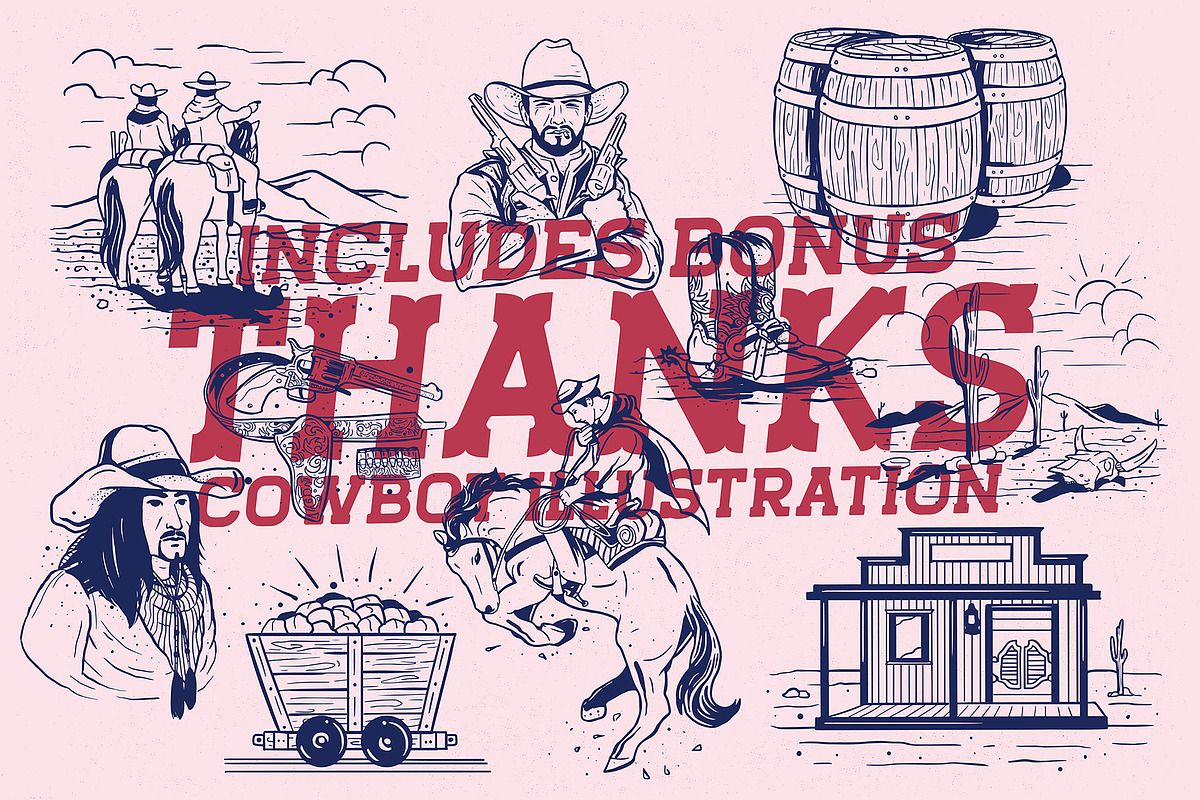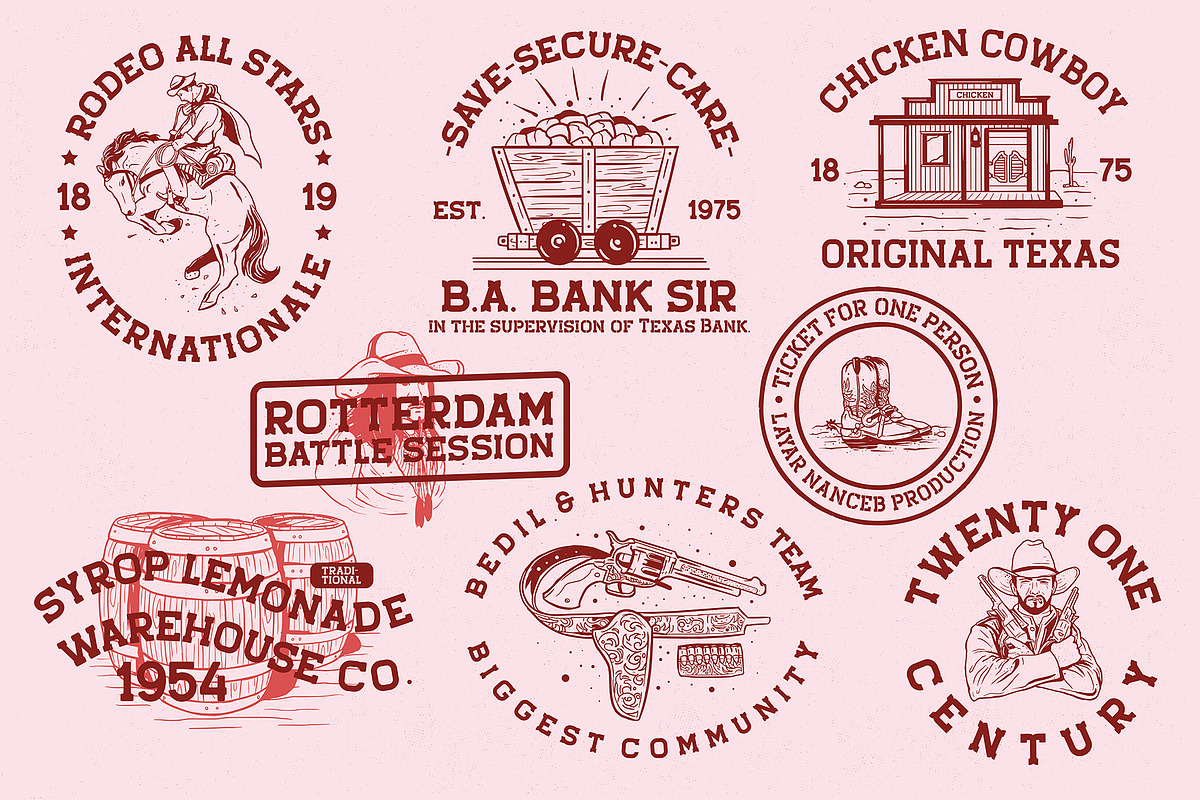
Stengkol
WOW ! Released a new font Stengkol Font Family of 20 fonts and includes a bonus illustration of cowboy themes. Slab serif with various font styles with layered fonts. It's easy to use various fonts in one design and combined with cowboy illustrations. Stengkol Font Family comes with:
- Uppercase.
- Lowercase.
- Numerals.
- Punctuation.
- Multilingual.
Stengkol Font Family is perfect for t-shirt designs, merchandise, posters, qoute, tickets, logotype and other designs. Can now this great offer, one time buy can be 20 fonts right away!